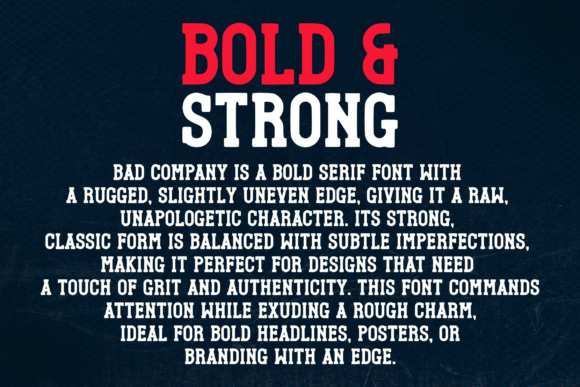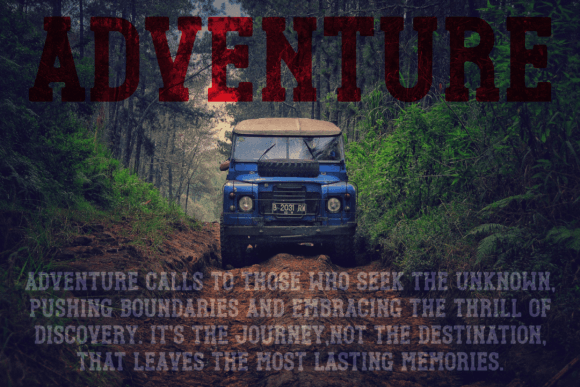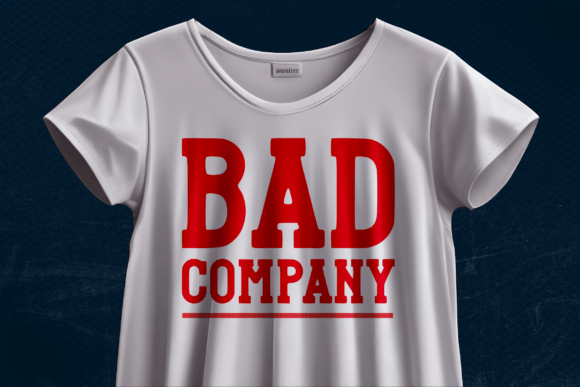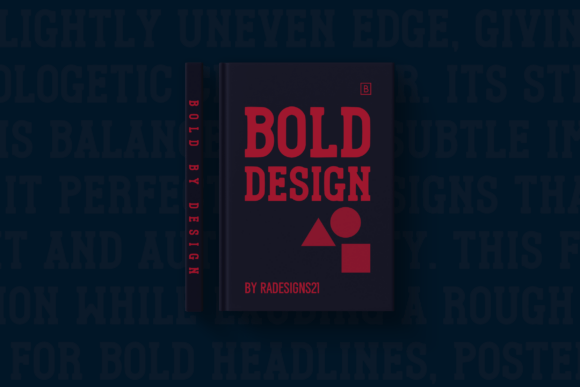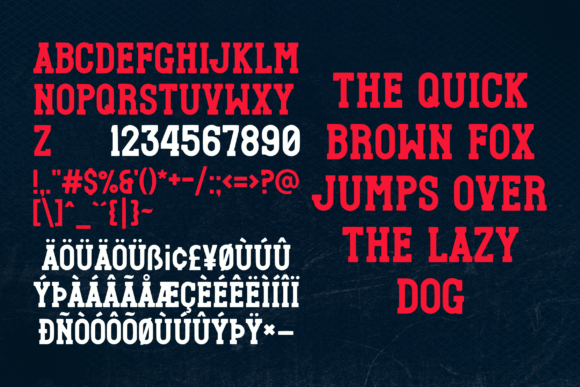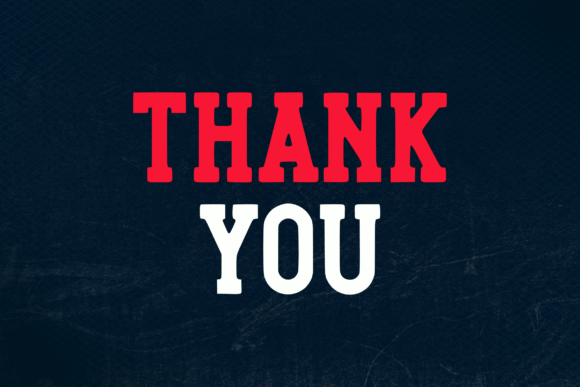
When a Font Tells a Story
Have you ever stared at a blank page, waiting for inspiration to strike? For designers, those moments are a mix of frustration and excitement. What if I told you that the right font can be the spark that sets your creativity ablaze?
Meet the Bad Company Font – a bold serif font that embodies the spirit of raw, unapologetic authenticity. This font is not for the faint of heart; it’s for those who dare to be different, who crave a touch of grit and edge in their designs. With its rugged, slightly uneven edge, the Bad Company Font commands attention and exudes a rough charm that’s perfect for bold headlines, posters, or branding with an edge.
For designers, the Bad Company Font is a valuable addition to any toolkit, offering a unique voice that can elevate any project and leave a lasting impression.
Bad Company Font Key Features
- Unique Characteristics: The Bad Company font features a distressed, vintage aesthetic with rough textures and irregularities, giving it a unique and eye-catching look.
- Font Styles: The font family includes several styles, including Regular, Italic, Bold, and Bold Italic, offering a range of options for designers and typographers.
Designer Review: Bad Company Font
Overall, I’d say the Bad Company Font has a lot going for it. The font’s bold and edgy vibe is sure to grab attention. I particularly like the ✨unique character shapes and the way the font seems to lean into its industrial roots.
- ✨ Unique character shapes add character to the font.
- ✨ The font’s edgy vibe is perfect for making bold statements.
- ✨ The font supports multiple languages, making it a versatile choice.
However, there are a few things that prevent the Bad Company Font from being a complete standout. One major limitation is that the font can feel a bit ⚠️overly aggressive at times, which may not be suitable for all projects. Additionally, the font’s weight and style options are limited, which can make it difficult to achieve the right balance in certain designs.
- ⚠️ Can feel overly aggressive in certain contexts.
- ⚠️ Limited weight and style options can be restrictive.
Overall, I’d say the Bad Company Font is a solid choice for designers looking to add some edge to their work. While it may not be perfect, its unique character and industrial vibe make it a great option for the right project.
Bad Company Font Practical Application Guide
Tips for Getting the Most Out of Bad Company Font
For best results, pair the Bad Company font with a clean and minimalist design. Use it sparingly to add emphasis and contrast to your text. Avoid using it for large blocks of text, as it can become overwhelming.
The Bad Company font is commonly used in music and entertainment branding, as well as in fashion and lifestyle design. It’s also a popular choice for creating bold and eye-catching headlines.
Alternatives to Bad Company Font
Bad Company Font is a sans-serif font known for its modern and edgy look. However, designers may want to explore other options for their projects. Here are a few alternatives:
Inter Font is a clean and minimalist sans-serif font designed by Rasmus Andersson. It is ideal for digital products, mobile apps, and websites where a modern and neutral look is required. Inter Font has a more subtle feel compared to Bad Company Font, making it suitable for corporate and business projects.
Montserrat is a geometric sans-serif font designed by Julieta Ulanovsky. It is perfect for urban and modern designs, such as logos, branding, and advertising materials. Montserrat is more ornate than Bad Company Font, with a stronger geometric feel, making it ideal for projects that require a bold and sophisticated look.